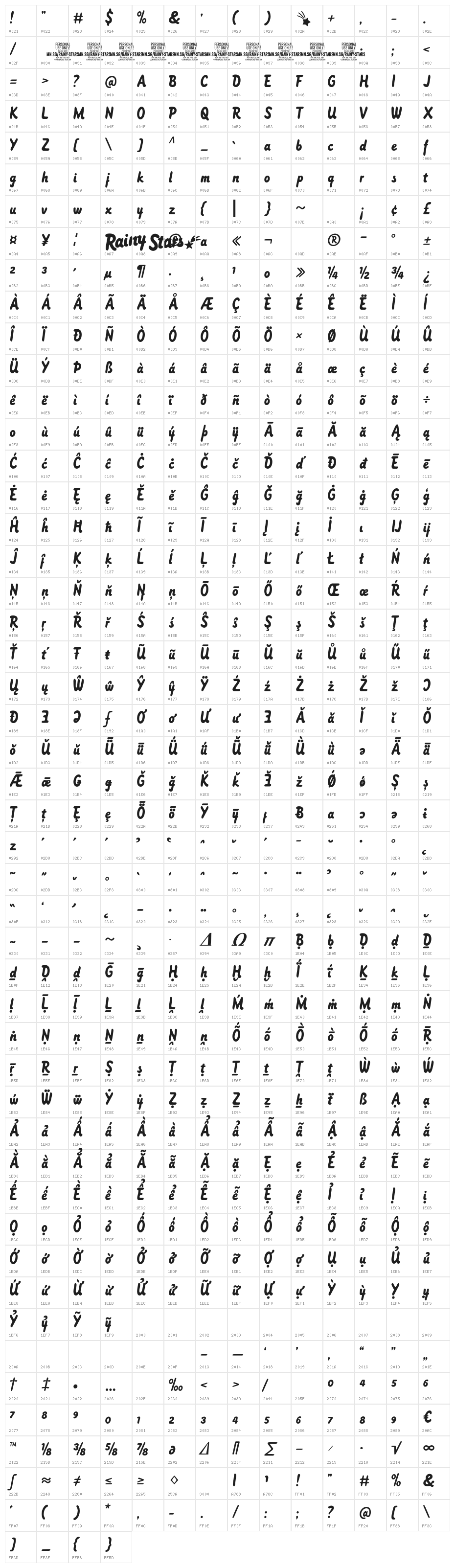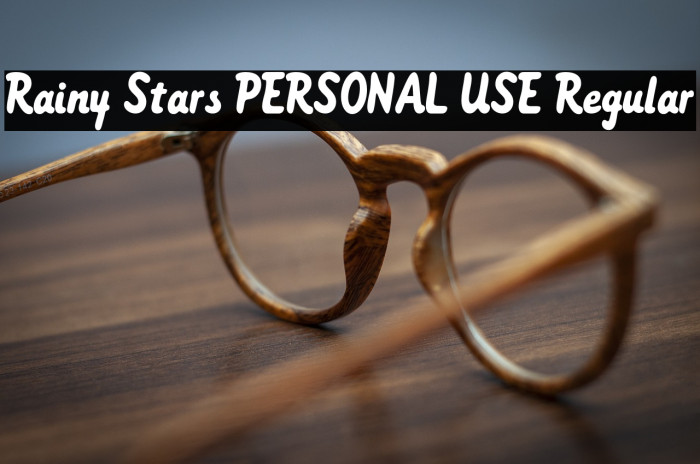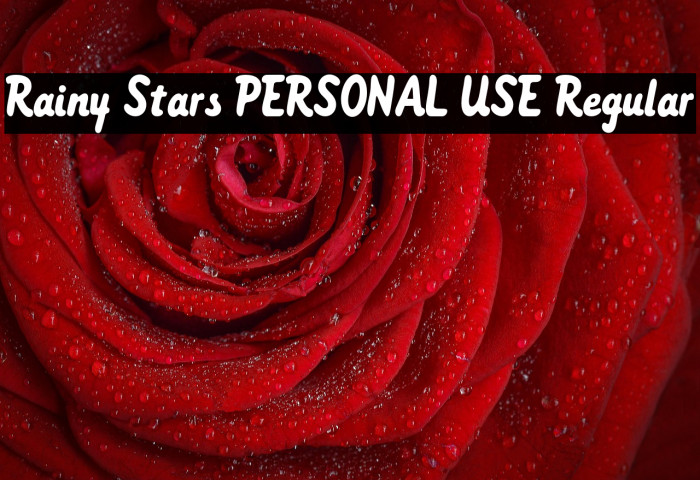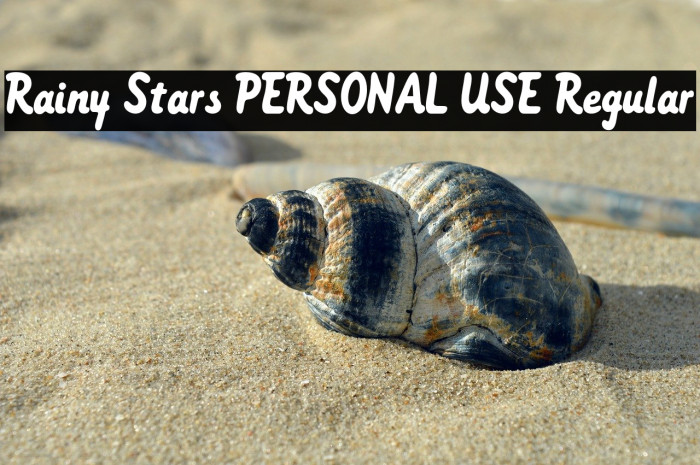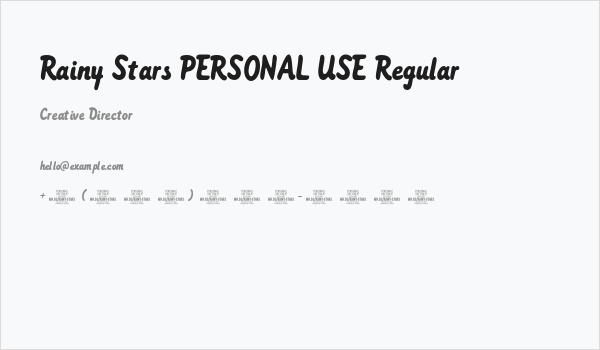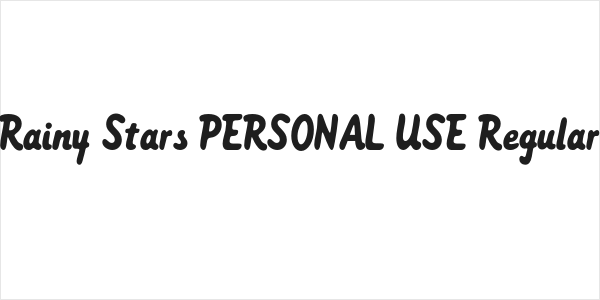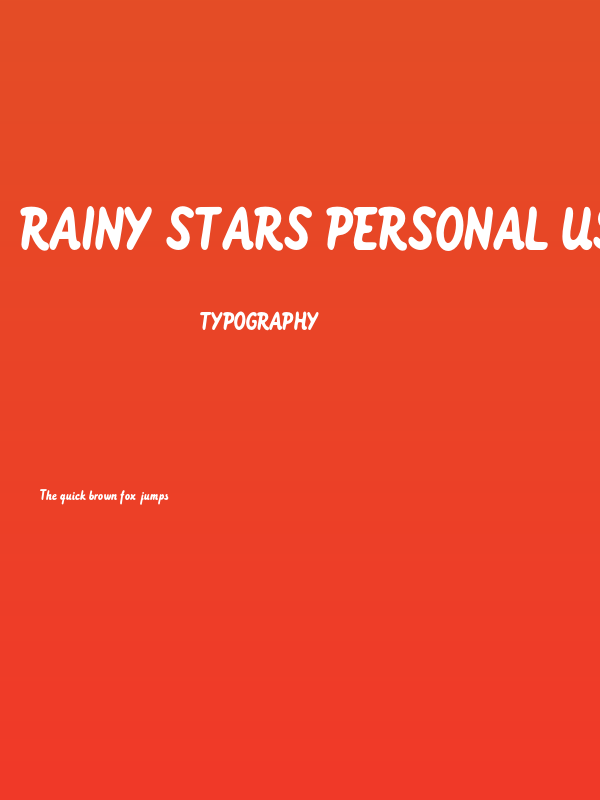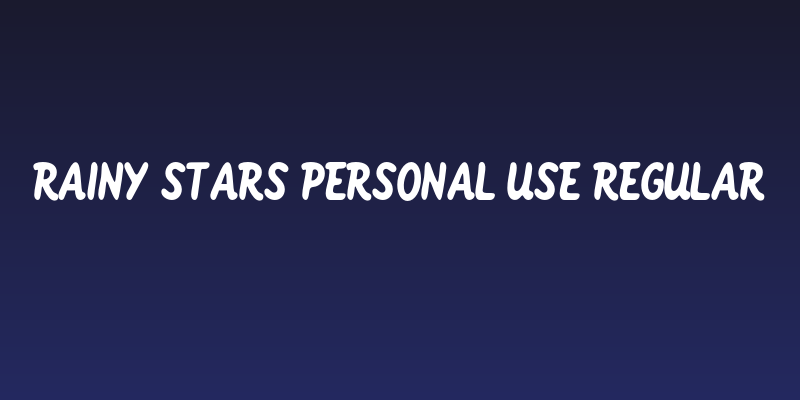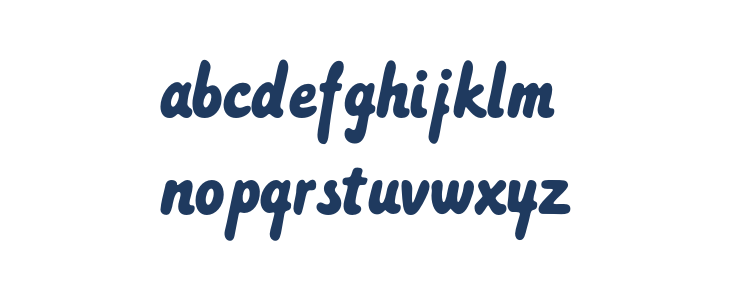
Rainy Stars PERSONAL USE Regular Font
Rainy Stars PERSONAL USE Regular Description
This playful and bold font features a handwritten style with smooth, rounded edges and a lively character. The uppercase and lowercase letters maintain a consistent flow, giving it a casual yet dynamic appearance. The numbers and special characters are equally expressive, adding to the font's versatility. Its thick strokes and rounded forms make it highly legible, while the slight slant adds a touch of movement and energy. This font is perfect for projects that require a friendly and approachable feel, such as children's books, playful branding, or creative posters.
| Overall Style | Playful, Casual |
| Proposed Projects | Children's books, playful branding, creative posters, greeting cards, social media graphics. |